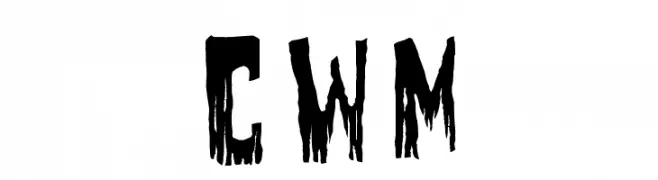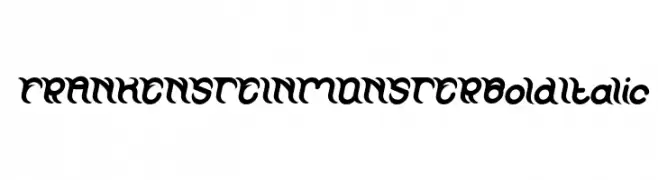
A hand-drawn, irregular font with bold, jagged strokes and a quirky, organic feel.
A jagged, eerie font with distressed, twisted characters ideal for horror themes.
A bold, dripping font with a playful yet eerie aesthetic.
A dripping, eerie font perfect for horror-themed designs.
A bold, dripping font with a playful, eerie vibe perfect for spooky themes.
A bold, dripping font with an eerie, horror-inspired style and italic slant.
A bold, italicized font with a monstrous and playful design.
A spooky, jagged font with a ghostly, eerie appearance.
An elegant script font with ornate flourishes and a refined style.
A bone-themed decorative font perfect for spooky designs.